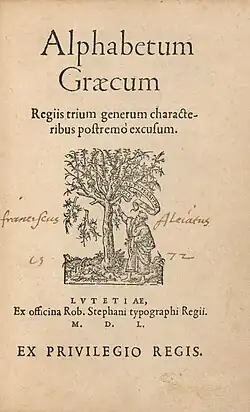
Serif
Serif font (red serifs) |
In typography, a serif (/ˈsɛrɪf/) is a small line or stroke regularly attached to the end of a larger stroke in a letter or symbol within a particular font or family of fonts. A typeface or "font family" making use of serifs is called a serif typeface (or serifed typeface), and a typeface that does not include them is sans-serif. Some typography sources refer to sans-serif typefaces as "grotesque" (in German, grotesk) or "Gothic"[1] (although this often refers to blackletter type as well). In German usage, the term Antiqua is used more broadly for serif types.
Serif typefaces can be broadly classified into one of four subgroups: Old-style, Transitional, Didone, and Slab serif, in order of first emergence.
Origins and etymology
Serifs originated from the first official Greek writings on stone and in Latin alphabet with inscriptional lettering—words carved into stone in Roman antiquity. The explanation proposed by Father Edward Catich in his 1968 book The Origin of the Serif is now broadly but not universally accepted: the Roman letter outlines were first painted onto stone, and the stone carvers followed the brush marks, which flared at stroke ends and corners, creating serifs. Another theory is that serifs were devised to neaten the ends of lines as they were chiselled into stone.[2][3][4]
The origin of the word 'serif' is obscure, but apparently is almost as recent as the type style. The book The British Standard of the Capital Letters contained in the Roman Alphabet, forming a complete code of systematic rules for a mathematical construction and accurate formation of the same (1813) by William Hollins, defined 'surripses', usually pronounced "surriphs", as "projections which appear at the tops and bottoms of some letters, the O and Q excepted, at the beginning or end, and sometimes at each, of all". The standard also proposed that 'surripsis' may be a Greek word derived from σῠν- ('syn-', "together") and ῥῖψῐς ('rhîpsis', "projection").
In 1827, Greek scholar Julian Hibbert printed with his own experimental uncial Greek types, remarking that the types of Giambattista Bodoni's Callimachus were "ornamented (or rather disfigured) by additions of what [he] believe[s] type-founders call syrifs or cerefs". The printer Thomas Curson Hansard referred to them as "ceriphs" in 1825.[5] The oldest citations in the Oxford English Dictionary (OED) are 1830 for 'serif' and 1841 for 'sans serif'. The OED speculates that 'serif' was a back-formation from 'sanserif'.
Webster's Third New International Dictionary traces 'serif' to the Dutch noun schreef, meaning "line, stroke of the pen", related to the verb schrappen, "to delete, strike through" ('schreef' now also means "serif" in Dutch). Yet, schreef is the past tense of schrijven (to write). The relation between schreef and schrappen is documented by Van Veen and Van der Sijs.[6] In her book Chronologisch Woordenboek,[7] Van der Sijs lists words by first known publication in the language area that is the Netherlands today:
- schrijven, 1100;
- schreef, 1350;
- schrappen, 1406 (i.e. schreef is from schrijven (to write), not from schrappen (to scratch, eliminate by strike-through)).
The OED's earliest citation for "grotesque" in this sense is 1875, giving 'stone-letter' as a synonym. It would seem to mean "out of the ordinary" in this usage, as in art 'grotesque' usually means "elaborately decorated". Other synonyms include "Doric" and "Gothic", commonly used for Japanese Gothic typefaces.[8]
Classification
Old-style
Old-style typefaces date back to 1465, shortly after Johannes Gutenberg's adoption of the movable type printing press. Early printers in Italy created types that broke with Gutenberg's blackletter printing, creating upright ("roman") and then oblique ("italic") styles that were inspired by Renaissance calligraphy.[9][10] Old-style serif fonts have remained popular for setting body text because of their organic appearance and excellent readability on rough book paper. The increasing interest in early printing during the late 19th and early 20th centuries saw a return to the designs of Renaissance printers and type-founders, many of whose names and designs are still used today.[11][12][13]
Old-style type is characterized by a lack of large differences between thick and thin lines (low line contrast) and generally, but less often, by a diagonal stress (the thinnest parts of letters are at an angle rather than at the top and bottom). An old-style font normally has a left-inclining curve axis with weight stress at about 8 and 2 o'clock; serifs are almost always bracketed (they have curves connecting the serif to the stroke); head serifs are often angled.[14]
Old-style faces evolved over time, showing increasing abstraction from what would now be considered handwriting and blackletter characteristics, and often increased delicacy or contrast as printing technique improved.[10][15][16] Old-style faces have often sub-divided into 'Venetian' (or 'humanist') and 'Garalde' (or 'Aldine'), a division made on the Vox-ATypI classification system.[17] Nonetheless, some have argued that the difference is excessively abstract, hard to spot except to specialists and implies a clearer separation between styles than originally appeared.[18][b] Modern typefaces such as Arno and Trinité may fuse both styles.[21]
Early "humanist" roman types were introduced in Italy. Modelled on the script of the period, they tend to feature an "e" in which the cross stroke is angled, not horizontal; an "M" with two-way serifs; and often a relatively dark colour on the page.[9][10] In modern times, that of Nicolas Jenson has been the most admired, with many revivals.[22][9] Garaldes, which tend to feature a level cross-stroke on the "e", descend from an influential 1495 font cut by engraver Francesco Griffo for printer Aldus Manutius, which became the inspiration for many typefaces cut in France from the 1530s onwards.[23][24] Often lighter on the page and made in larger sizes than had been used for roman type before, French Garalde faces rapidly spread throughout Europe from the 1530s to become an international standard.[19][23][25]